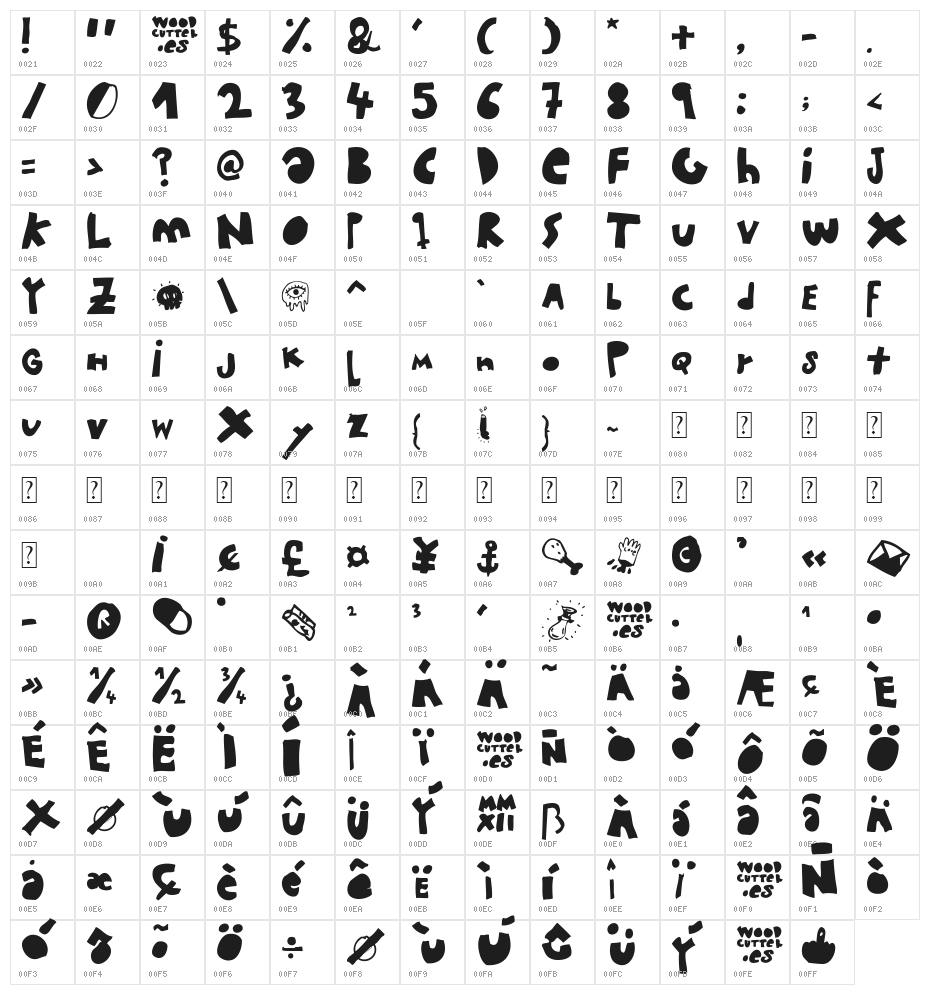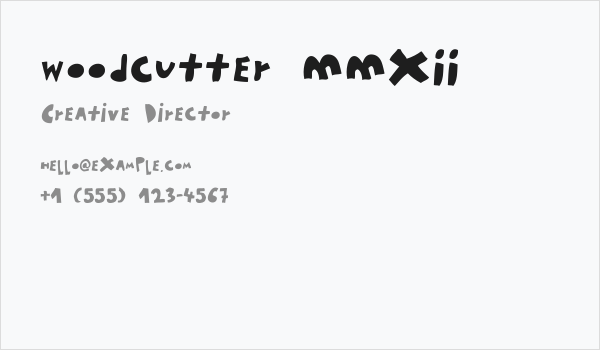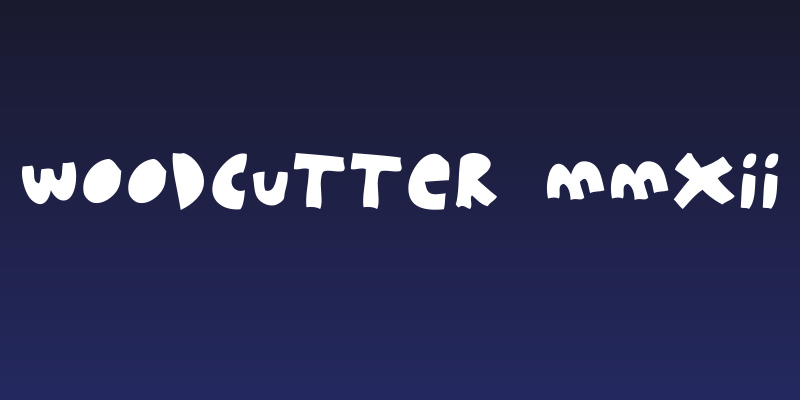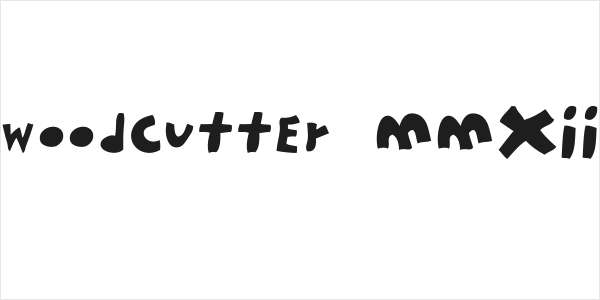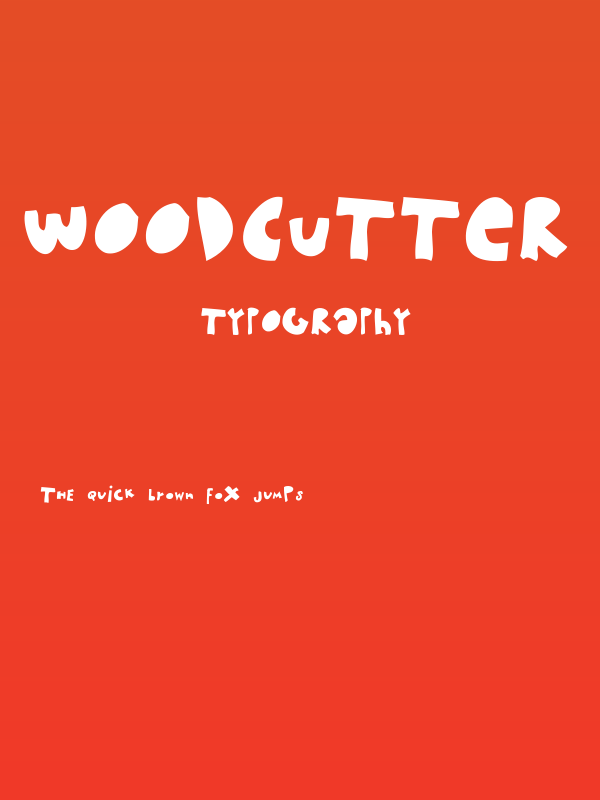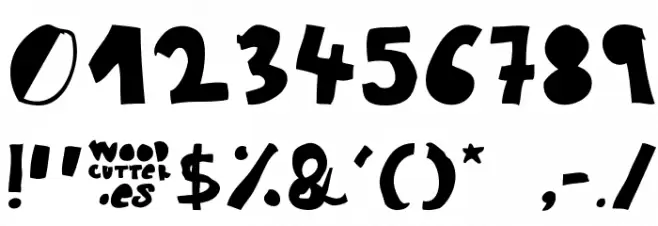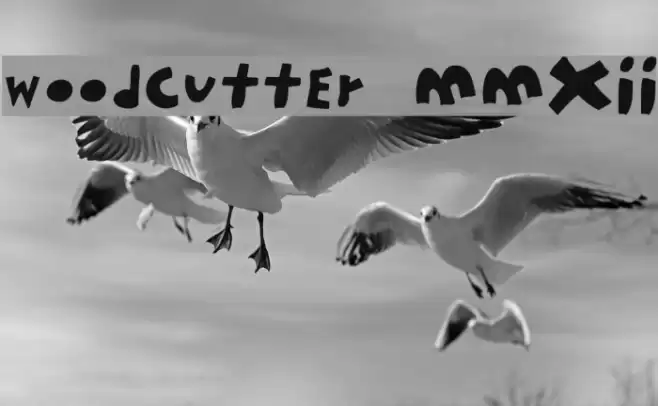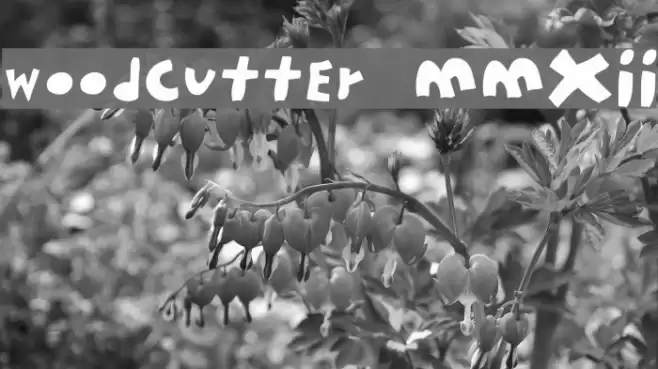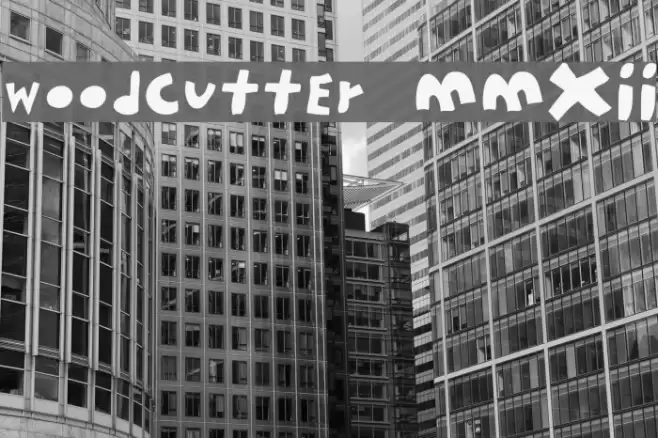
woodcutter MMXII Font
This font features a playful and bold style with irregular, hand-drawn characters that convey a sense of whimsy and creativity. The letters are unevenly shaped, giving them a dynamic and lively appearance. The uppercase and lowercase letters are distinct, with some characters having exaggerated curves and angles. The numbers and special characters maintain the same playful aesthetic, making the font suitable for informal and creative projects. The overall design is reminiscent of a handcrafted, artistic style, perfect for adding a unique touch to any design.
| Overall Style | Playful, Artistic |
| Proposed Projects | Ideal for children's books, creative posters, playful branding, and artistic invitations. |